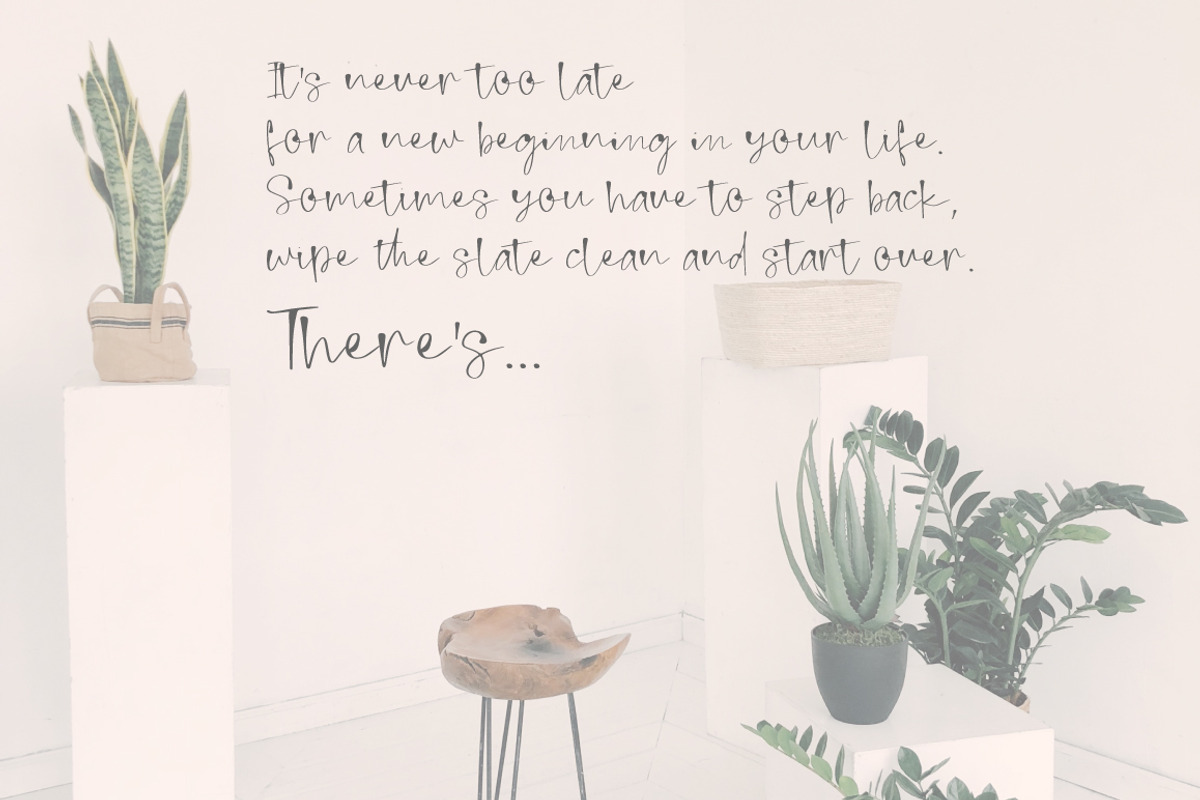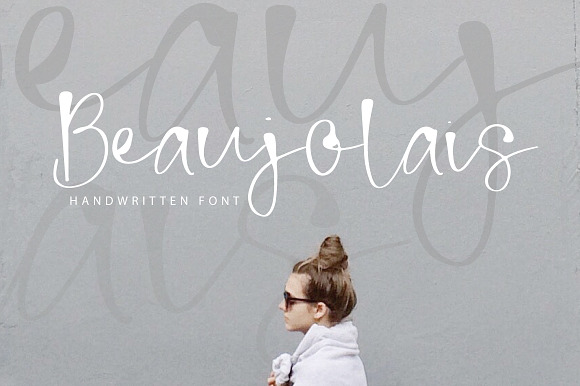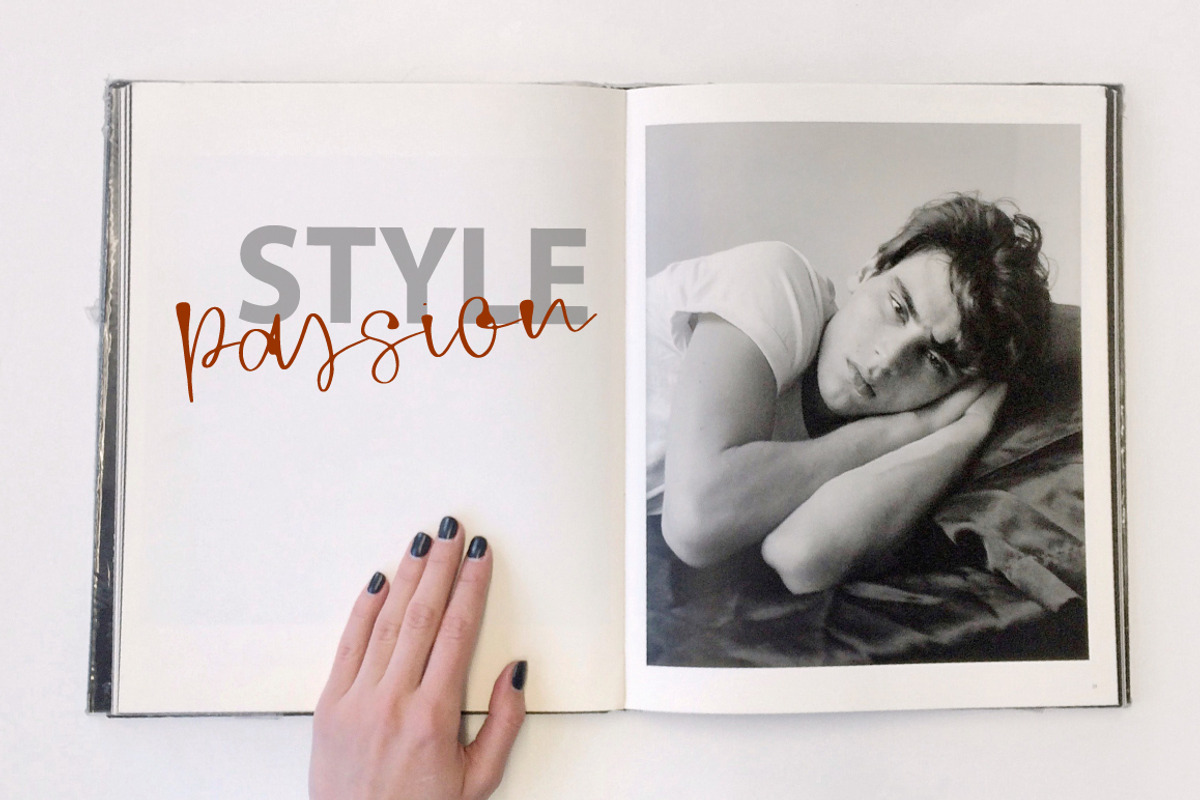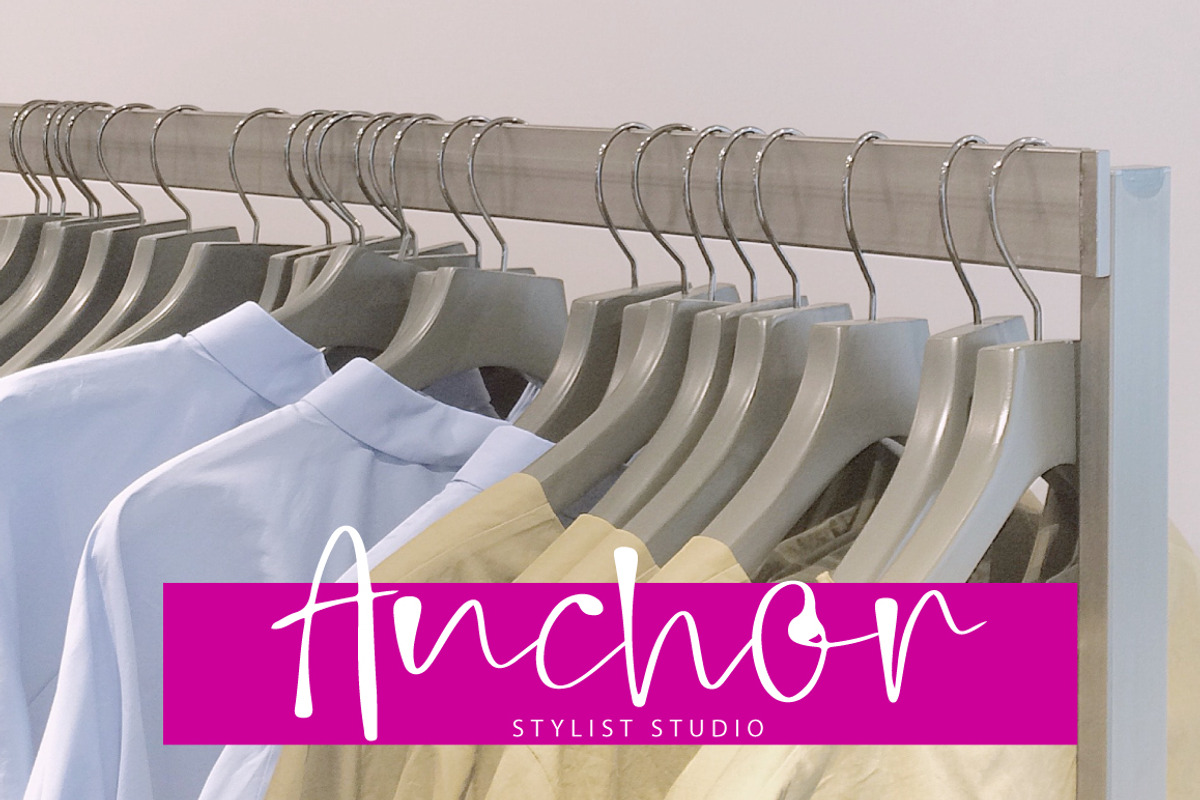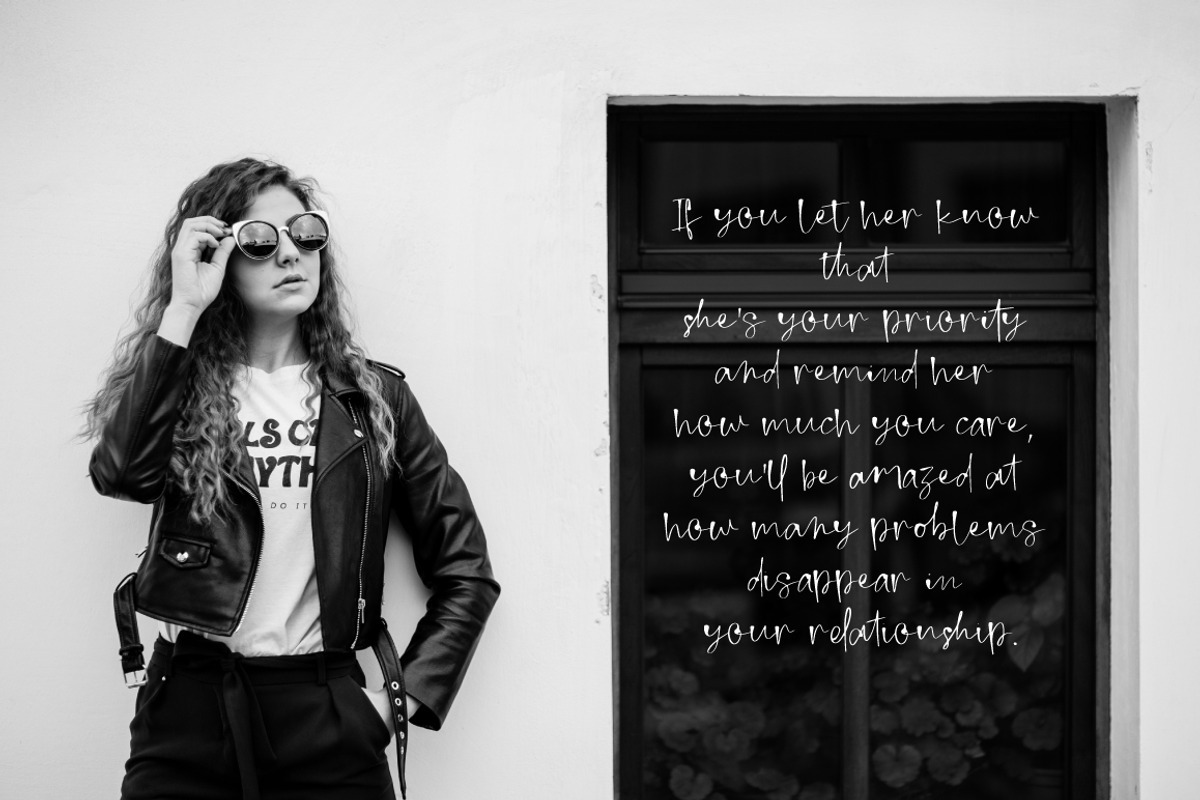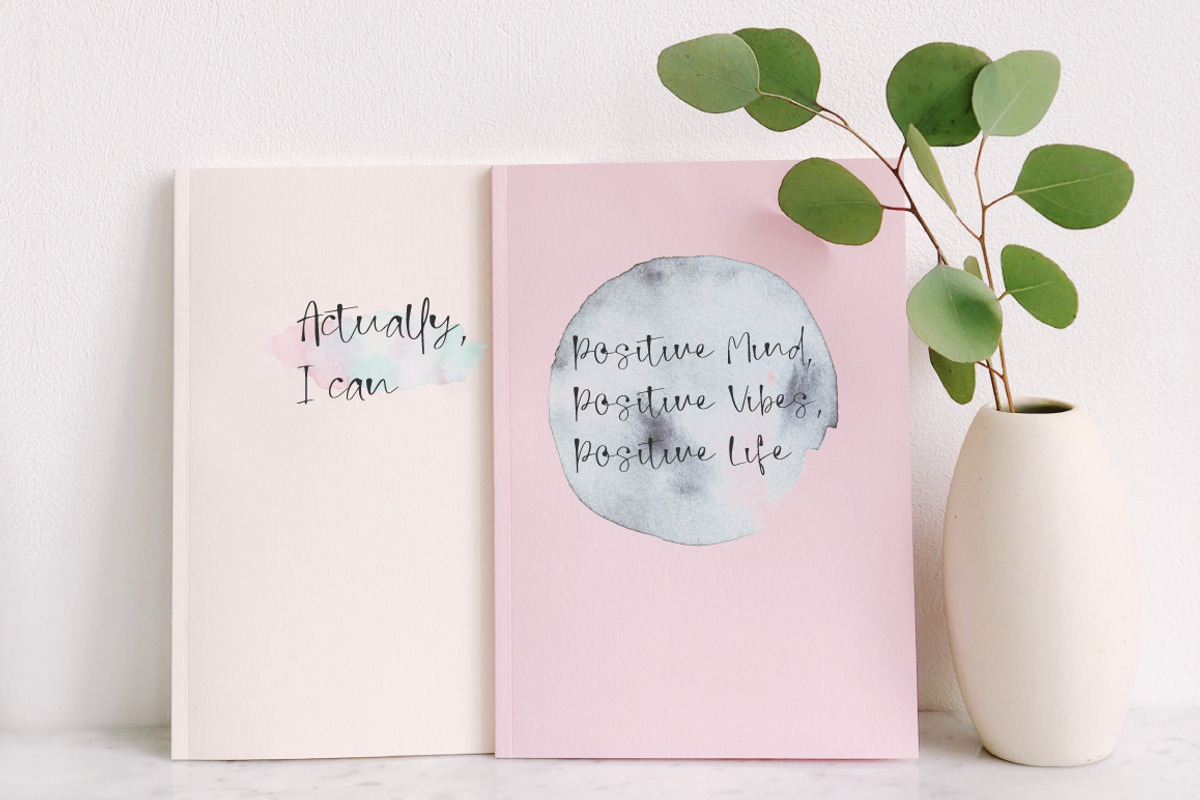
Beaujolais | Handwritten Font
Beaujolais is a modern feminine font,
Every single letter has been creative carefully and Perfectly Playful new font pair.
A modern script style this font will perfect for many different project ex: photography, watermark, quotes, blog header, poster, wedding, branding, logo, fashion, apparel, letter, invitation, stationery, etc.
Ligature glyph: ad af al as at am an ck cl de ef el er ff ft id if ih in it ll nt ob of ol nt pl sh sk ss st tt th ub ut wh
Multilingual support is included for Western European Languages (if something is missing or you've got a request please let me know and I'll try to add it to the next update)